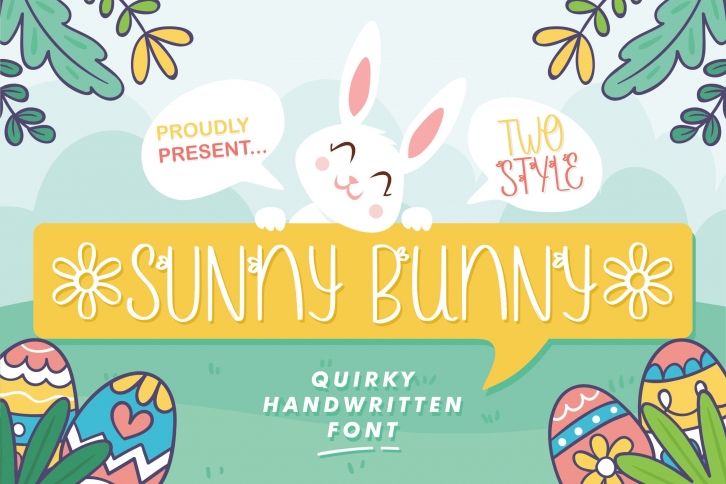
Web is a trendy and unique font with an authentic style. It was designed by Allouse Studio and it's a great choice for creative people who need such a font. It was released on March 21, 2021 and the file size is 17.63 MB. Web will add an organic vibe to any design idea!